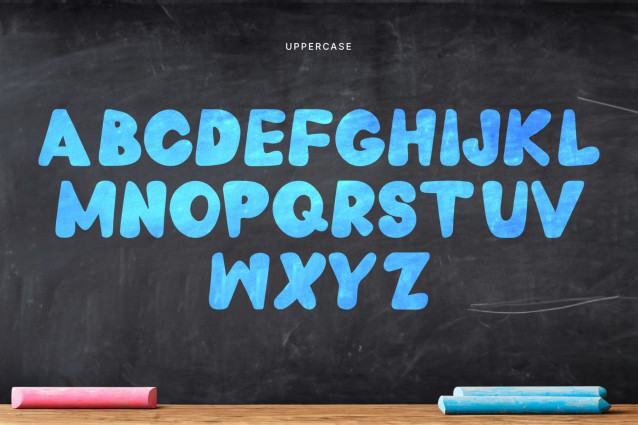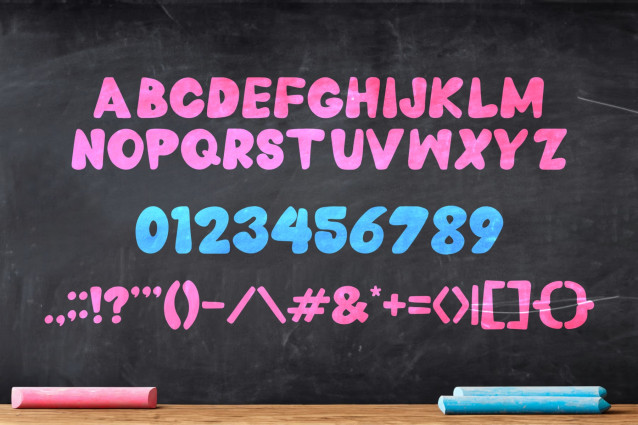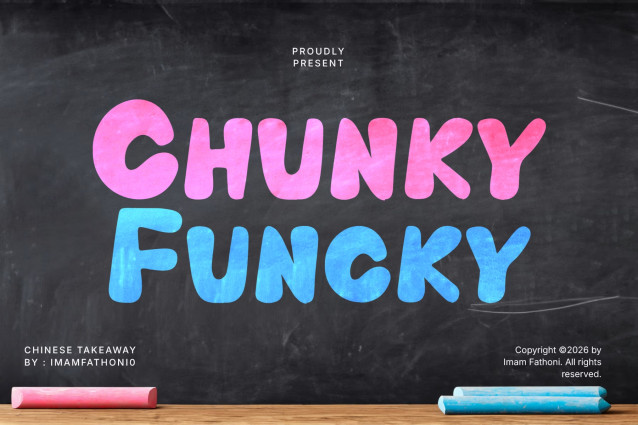
Inject vibrant playground energy, playful retro character, and bold hand-lettered pop into your designs with Chunky Funcky! This heavy display font features extra-thick, rounded letterforms with a subtle chalk texture and bouncy, uneven baselines. Its ultra-bold weight ensures your titles pop with maximum fun and high-impact visibility.
Ideal for kids’ party invitations, school classroom decor, chalkboard signs, sticker packs, bright apparel graphics, food truck signage, and custom Cricut or Silhouette craft SVG creations!